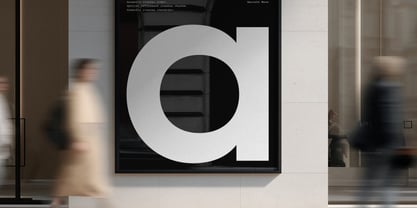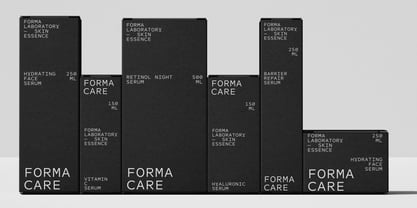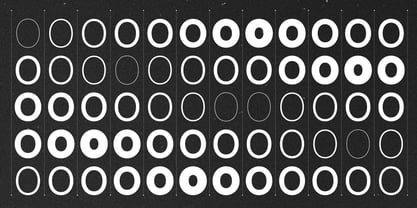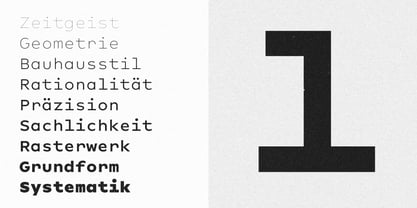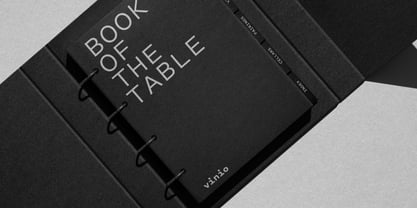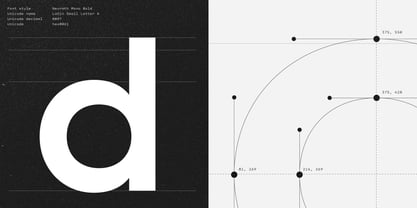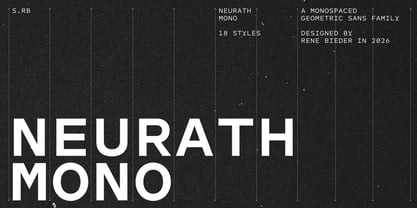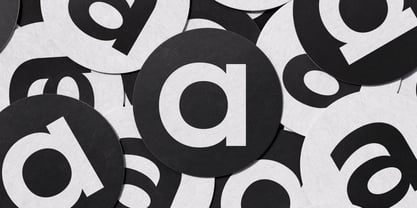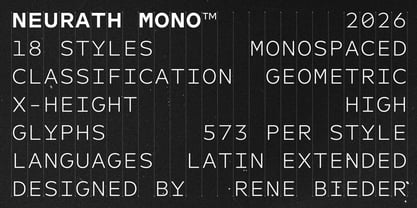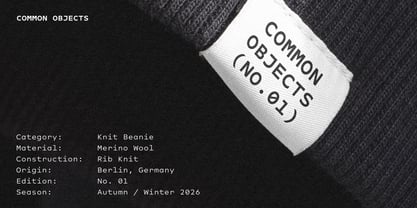
Neurath Mono
by René Bieder
Neurath Mono is a geometric monospaced typeface that reconsiders the conventions of fixed-width typography through a more open and approachable design. Developed alongside Neurath, the collection’s proportional counterpart, it builds on the same reinterpretation of Paul Renner’s Futura while adapting it to the constraints of a monospaced system.
Unlike many monospaced typefaces, Neurath Mono features an increased x-height and carefully balanced proportions, allowing round forms and generous spacing to coexist within a fixed-width structure. The result is a typeface that feels more open and less compressed while maintaining the precision expected from monospaced design.
The family includes 18 styles from Thin to Black and a comprehensive set of OpenType features. Stylistic alternates, fractions, and arrows provide the flexibility required for interface design, branding, editorial typography, coding environments, and display use.
To improve readability in text sizes, punctuation and diacritics were drawn slightly larger than usual, increasing clarity in continuous reading. At larger sizes, these details become a distinctive feature of the design, contributing to the family’s character without dominating the overall composition.